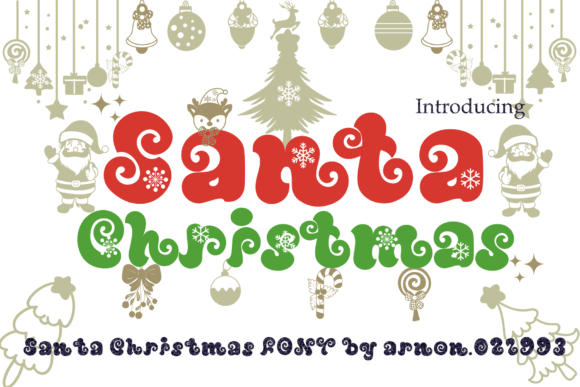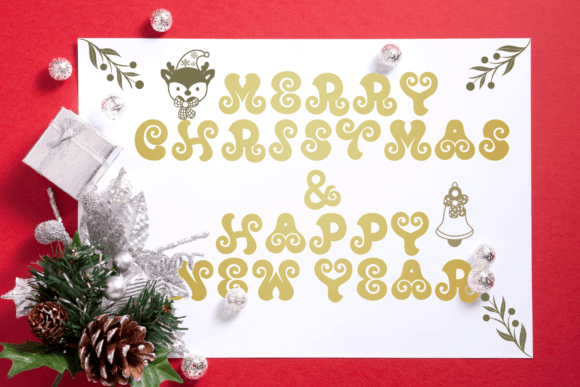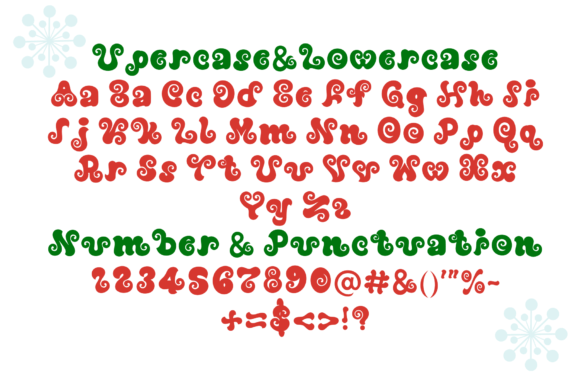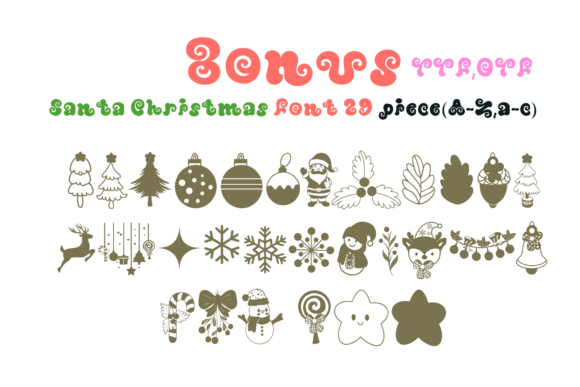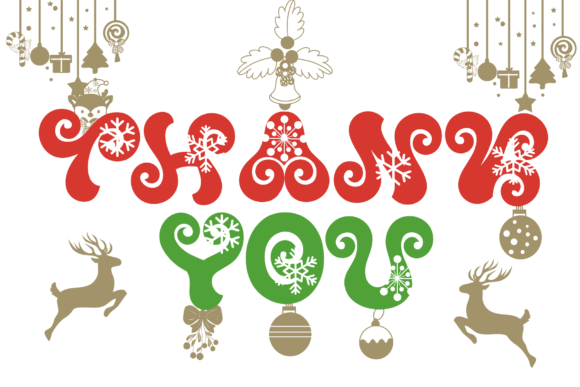
Santa Christmas Font
Santa Christmas font is a festive typeface that captures the joyful spirit of the holiday season. With its curly letter ends reminiscent of Santa’s whimsical curls, this font adds a playful and Christmassy touch to your designs. Perfect for holiday cards, gift tags, and holiday-themed projects, Santa Christmas brings a touch of holiday magic to your text.